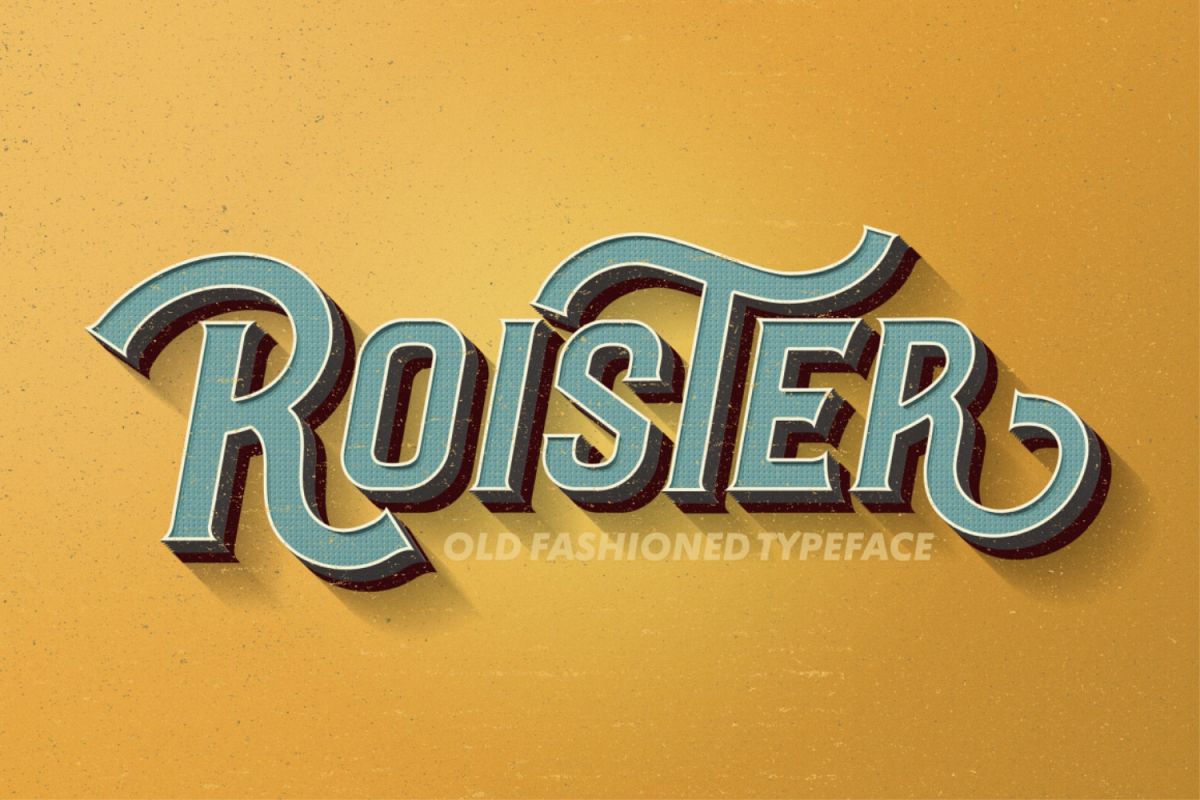
Roister Typeface
Roister Rough
Roister Typeface
Roister Typeface was made by combination from classic and modern style, trying to give a vintage feel with this font..Roister Typeface also have opentype features (such as stylistic set 01 - stylistic set 02, swash, and standart ligature)